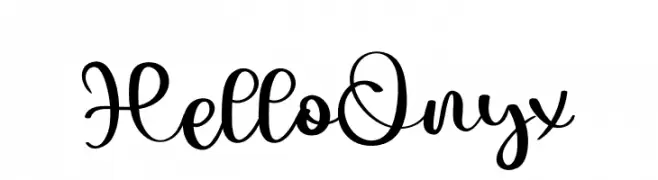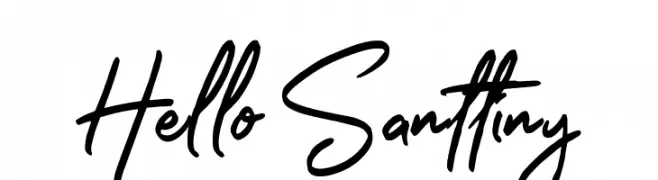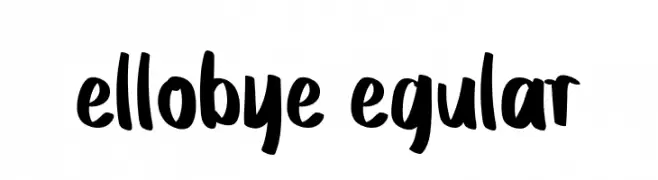
A dynamic, cursive script font with a handwritten feel.
A bold, brush-style font with a dynamic and artistic flair.
A bold, brush-style italic font with dynamic and expressive strokes.
A playful, bold handwritten font with thick, rounded strokes.
A playful, handwritten script font with dynamic strokes and smooth connections.
A playful and whimsical script font with elegant loops and swirls.
A lively and expressive handwritten font with fluid strokes.
A playful, hand-drawn script font with smooth curves and interconnected letters.
A playful and elegant script font with fluid, connected letterforms.
An elegant script font with flowing, cursive letterforms and high contrast strokes.